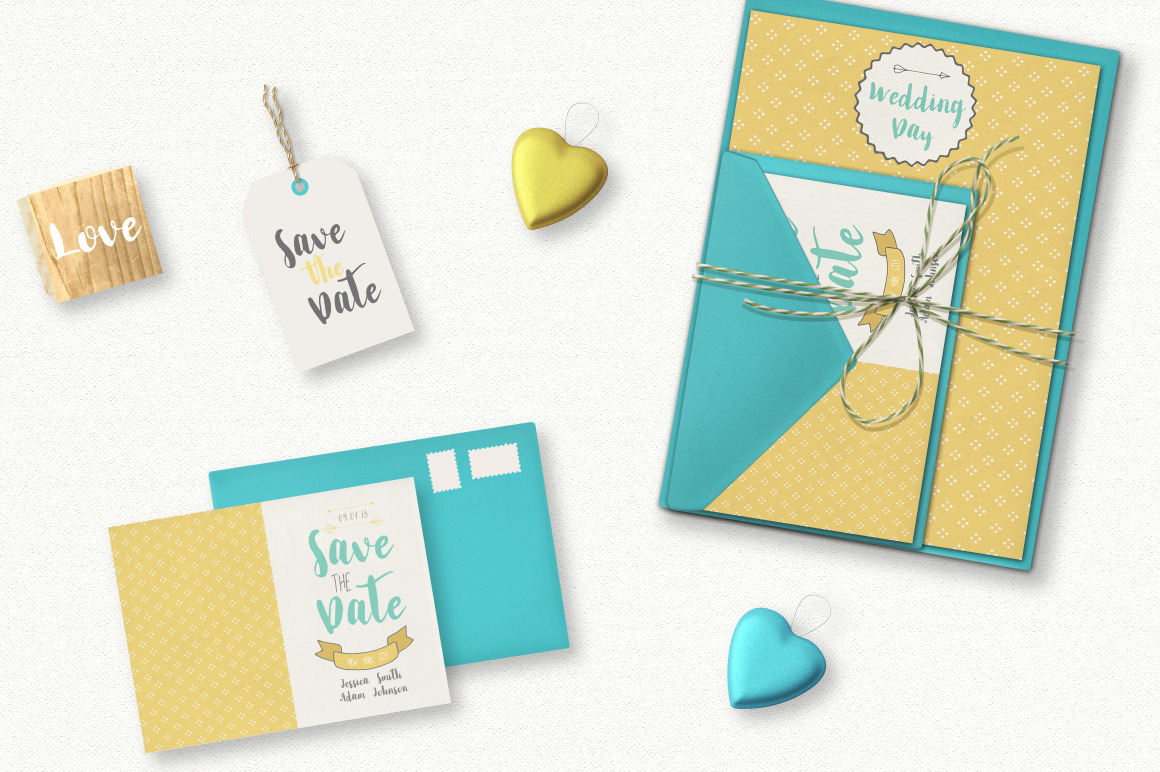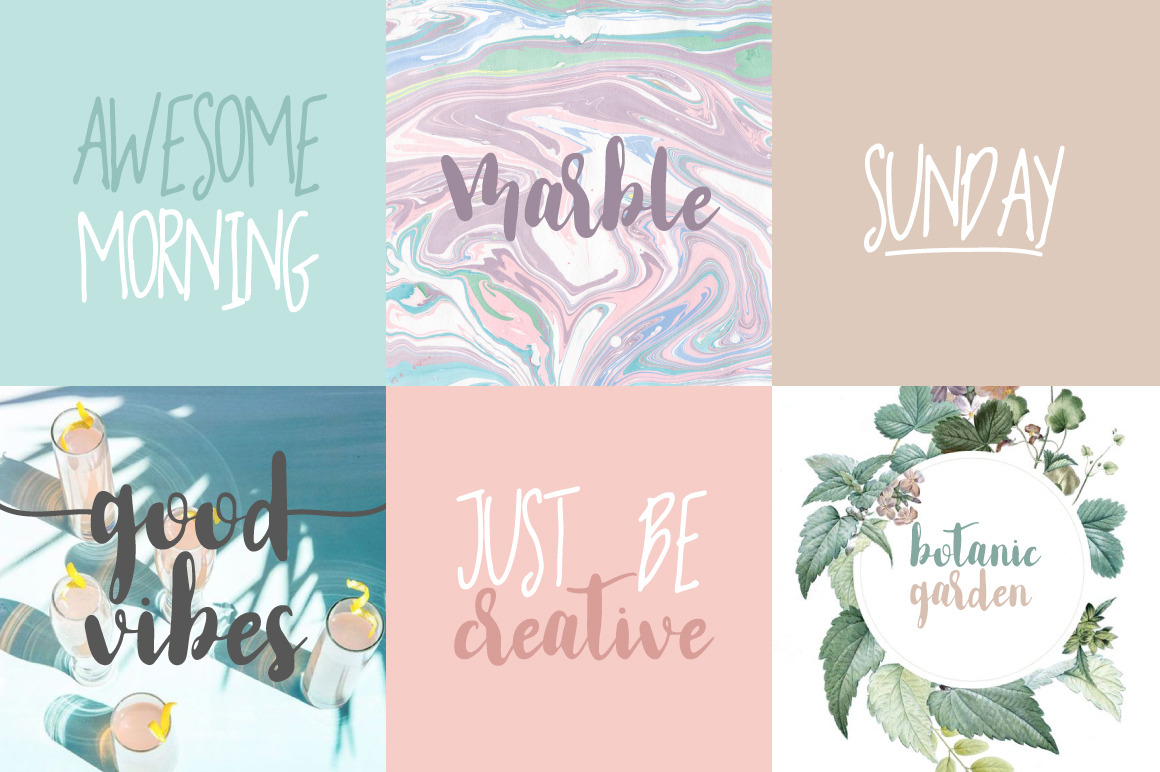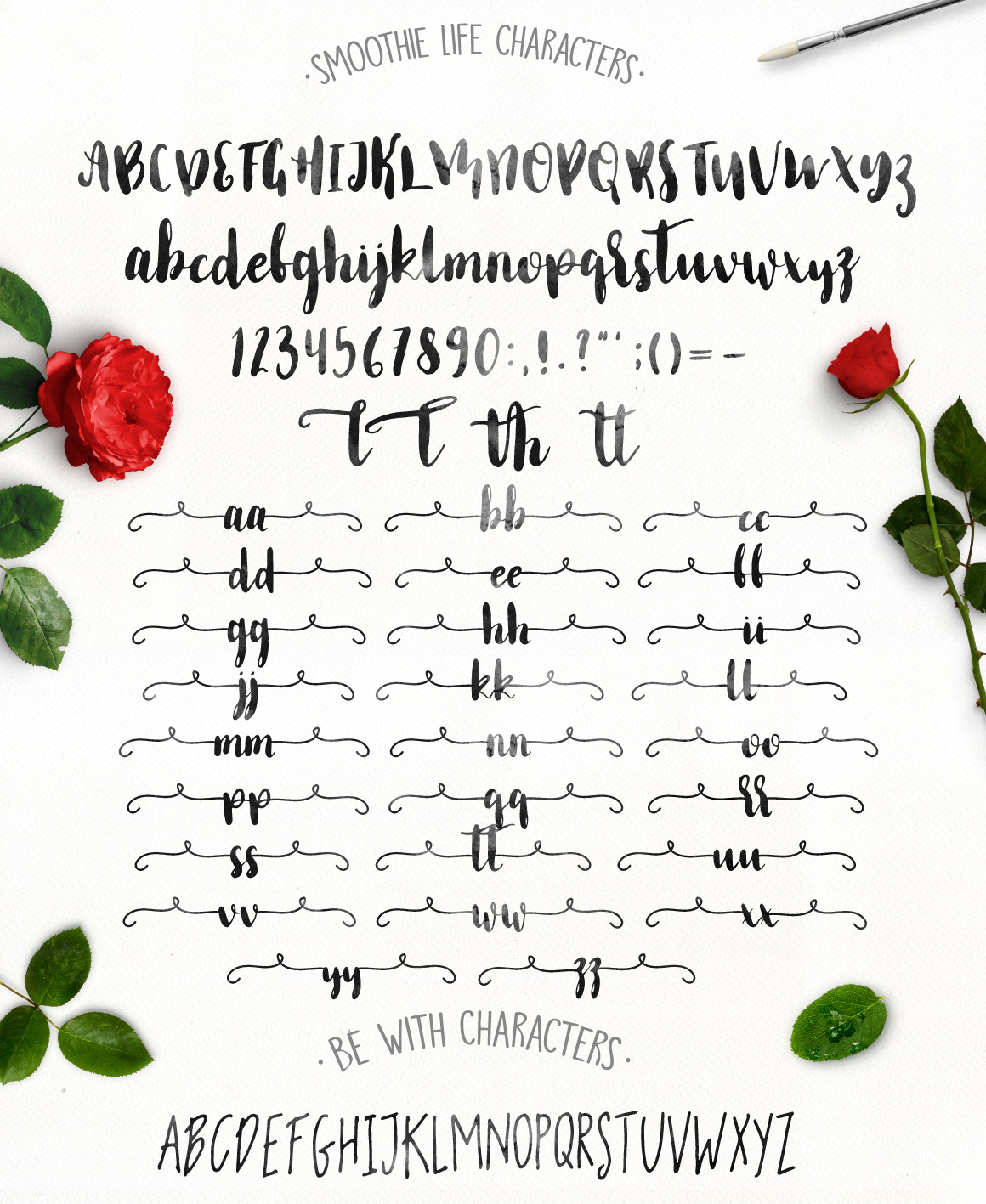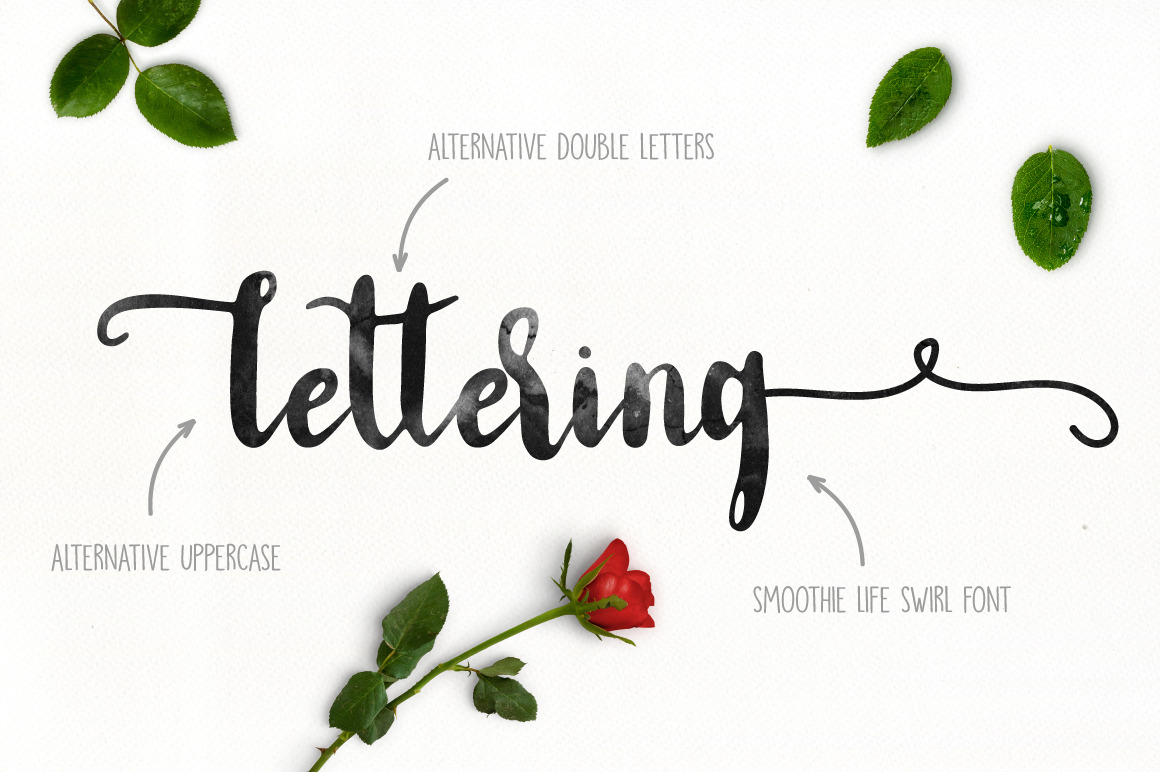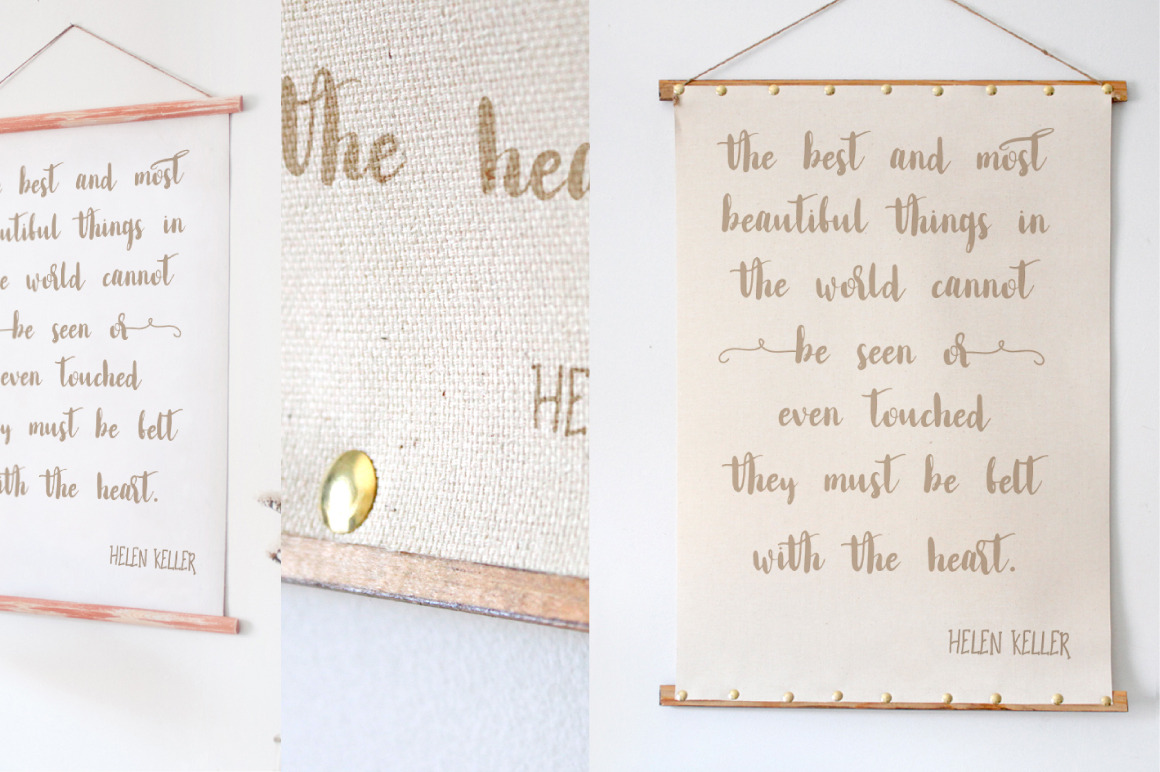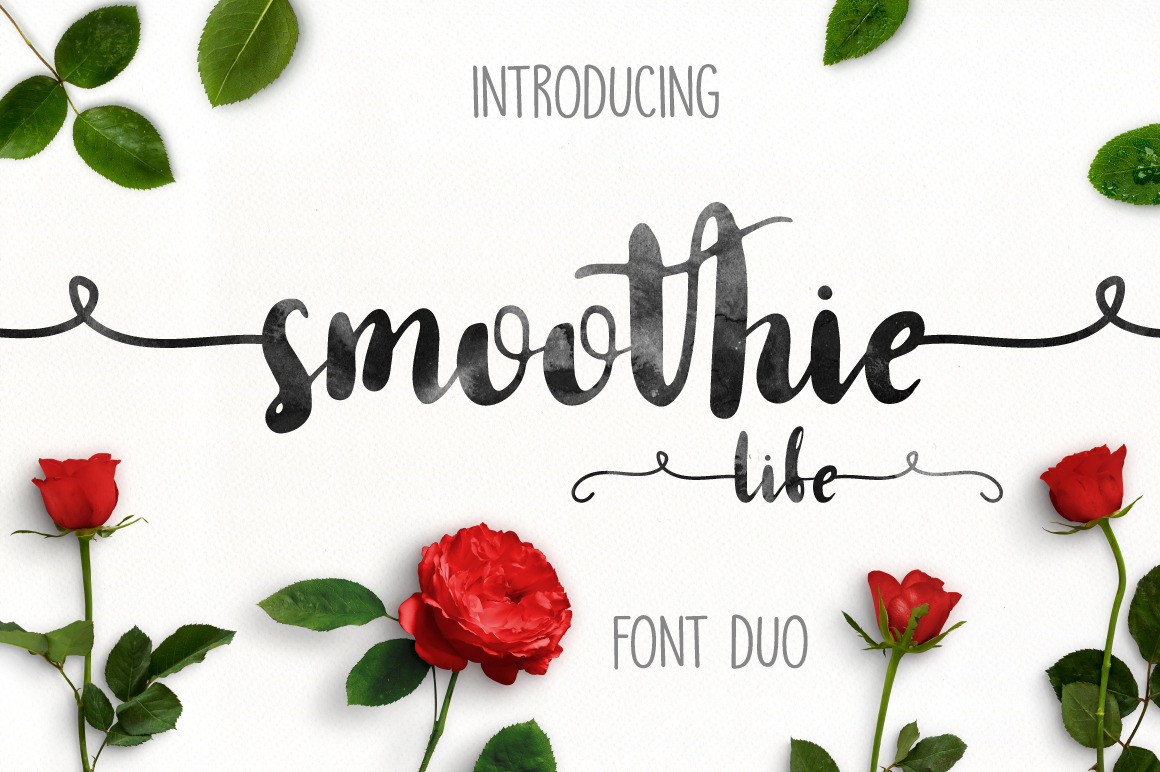
Be with Smoothie Life [Font Duo]* This font is handwritten and contains alternative double letters, alternative uppercase and swirl font. - You need to make t-shirt design or invitation Maybe you want to make poster, send a postcard to friend or a pillow Or if you have a small shop or a cafe Use this font for your design. - *What's in the package:* - Be With Regular ( OTF, TTF, WOFF and WOFF2 ); - Smoothie Life Regular ( OTF, TTF, WOFF and WOFF2 ); - All fonts are stored in OTF and TTF. So you can use them in Illustrator and Photoshop. - Say hi to me on Instagram - https://www.instagram.com/julia_dreams.co/ - *If you have any questions please contact me. Happy creating! Thank you. Julia.* | Smoothie Life [Font Duo] | Julia Dreams